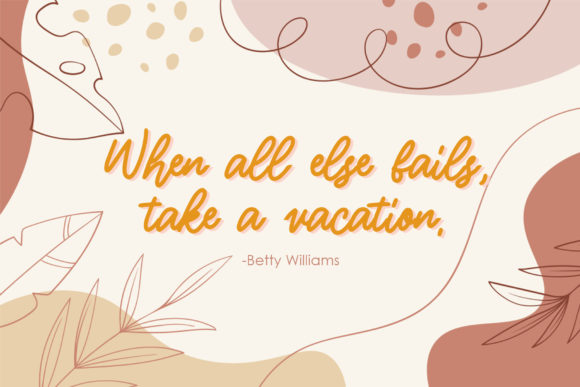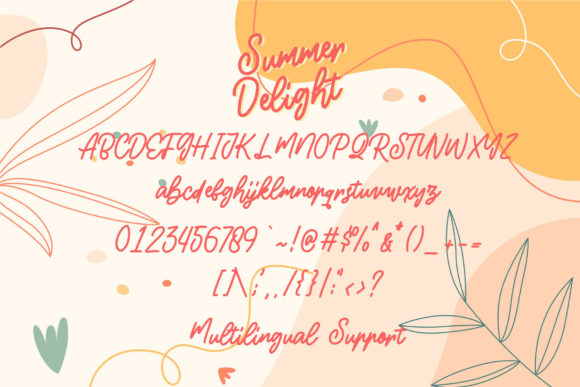
Summer Delight Font
About Summer Delight Font
Summer Delight is a beautifully designed vintage-inspired script font that effortlessly captures the essence of a bygone era. With its casual and relaxed handwriting style, this font brings a touch of nostalgic charm to your creative projects. The timeless appeal of Summer Delight makes it a versatile choice for a wide range of design applications.
Enhance your unique designs with the elegant and flowing characters of Summer Delight. Whether you’re working on invitations, labels, logos, magazines, books, greeting or wedding cards, packaging, fashion, makeup, stationery, or any advertising-related project, this font will infuse your creations with a sense of sophistication and creativity.
The curves and lines of Summer Delight exude a sense of warmth and authenticity, adding a distinctive character to your designs. Its vintage charm and effortless style will transport your audience to a place of comfort and elegance, making your designs truly stand out.
Utilize the versatility of Summer Delight to add a touch of summer’s delight to your creative endeavors. This font embodies the spirit of the season, encapsulating the carefree and joyful atmosphere of summer days. Let Summer Delight be your creative companion, guiding you through a journey of inspiration and artistic expression.
Embrace the beauty of Summer Delight and elevate your designs with its unique and captivating presence. Infuse your projects with the nostalgic elegance of this font, and watch as they come to life with a timeless appeal that resonates with your audience.